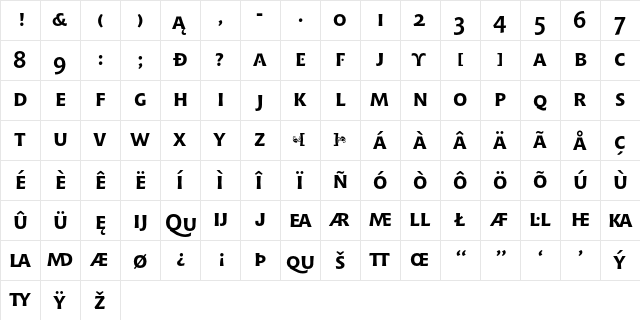
Bitstream Chianti Bold Small Cap Font Preview
Bitstream Chianti Bold Small Cap
Design Context for Bitstream Chianti Typeface
Bitstream Chianti offers clean, dependable letterforms without strong stylistic allegiance, making it a practical choice for designers who need flexibility. Its bold stroke weight gives it real presence on the page.
Pro Tip: Pair Bitstream Chianti with a font of contrasting weight or personality to build a more expressive typographic hierarchy.